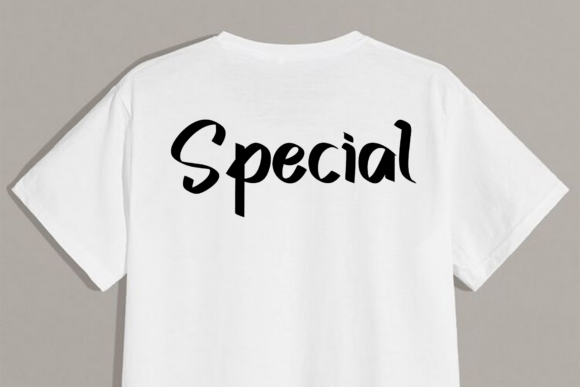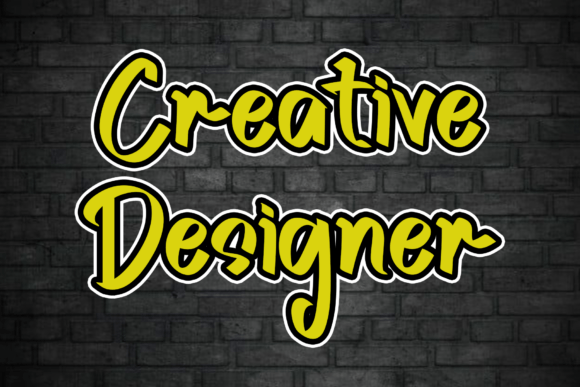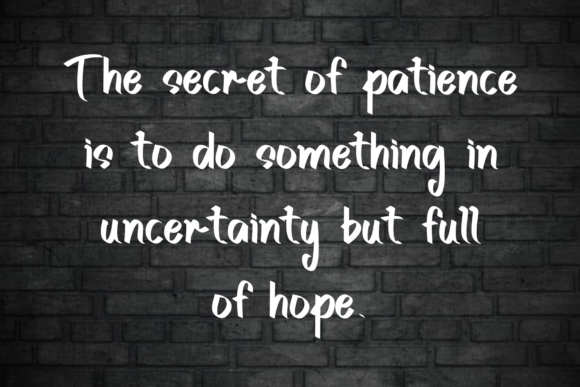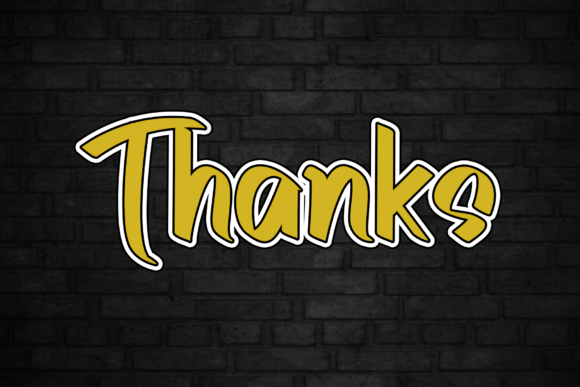
Unleash Your Creativity with Blashter Font: The Ultimate Brush Display Font
Are you tired of using the same old fonts in your designs? Do you want to add a dynamic, handcrafted touch to your posters, apparel, banners, and branding? Look no further than Blashter Font, a bold and energetic brush display font that’s perfect for designers and crafters who want to make a statement.
The Perfect Blend of Edgy and Playful
Blashter Font is a unique and versatile font that’s designed to add a casual, street-style attitude to your designs. With its edgy strokes and playful outline, this font is perfect for creating eye-catching posters, youth apparel, banners, and street-style branding that’s sure to grab attention.
Whether you’re a designer, crafter, or DIY enthusiast, Blashter Font is the perfect choice for anyone who wants to add a personal touch to their designs. The font’s confident brush style and dynamic strokes give it a handcrafted feel that’s perfect for creating unique and personalized designs.
Key Features of Blashter Font
- Bold and Energetic: Blashter Font is a bold and energetic font that’s perfect for making a statement.
- Brush Display Font: With its confident brush style and dynamic strokes, Blashter Font is perfect for creating eye-catching designs.
- Edgy Strokes: The font’s edgy strokes add a casual, street-style attitude to your designs.
- Playful Outline: The playful outline of Blashter Font gives it a versatile edge for both digital and print use.
- Handcrafted Touch: Blashter Font has a handcrafted feel that’s perfect for creating unique and personalized designs.
Blashter Font is perfect for a variety of design projects, including:
- Posters: Create eye-catching posters that grab attention with Blashter Font.
- Youth Apparel: Add a dynamic, handcrafted touch to your youth apparel designs with Blashter Font.
- Banners: Create bold and energetic banners that make a statement with Blashter Font.
- Street-Style Branding: Add a casual, street-style attitude to your branding with Blashter Font.
Why Choose Blashter Font?
There are many reasons why Blashter Font is the perfect choice for designers and crafters, including:
- Unique and Versatile: Blashter Font is a unique and versatile font that’s perfect for a variety of design projects.
- High-Quality: Blashter Font is a high-quality font that’s designed to produce crisp and clear results.
In conclusion, Blashter Font is a bold and energetic brush display font that’s perfect for designers and crafters who want to add a dynamic, handcrafted touch to their designs. With its edgy strokes and playful outline, this font is perfect for creating eye-catching posters, youth apparel, banners, and street-style branding that’s sure to grab attention.